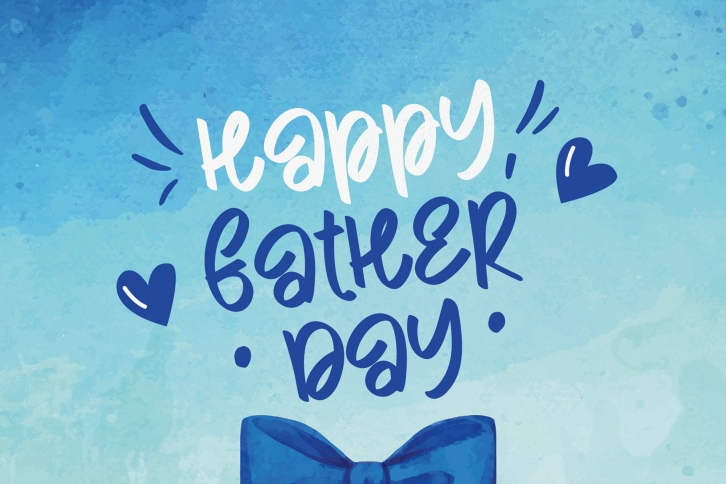
Fatherday is a great font that was designed by Scratchones. Imagine the amount of combinations you can create using this font! The archive is 6.16 MB and it was released on September 10, 2021. Fatherday looks beautiful on wedding invitations, greeting cards, logos, posters, labels, t-shirt designs, logos, business cards and is perfect for use in ink or watercolor works, fashion, magazines, packaging and food menus, children's books and more!